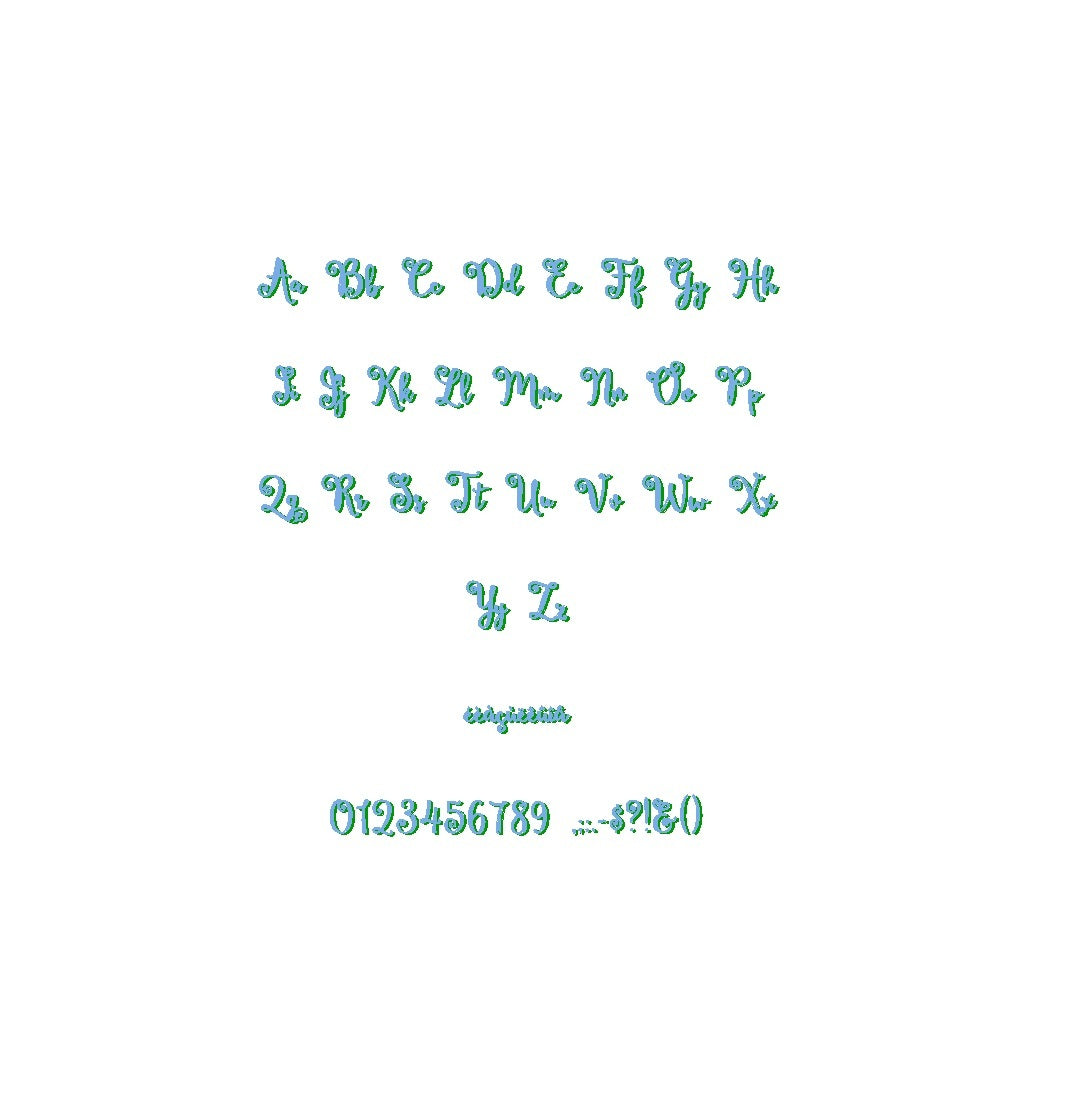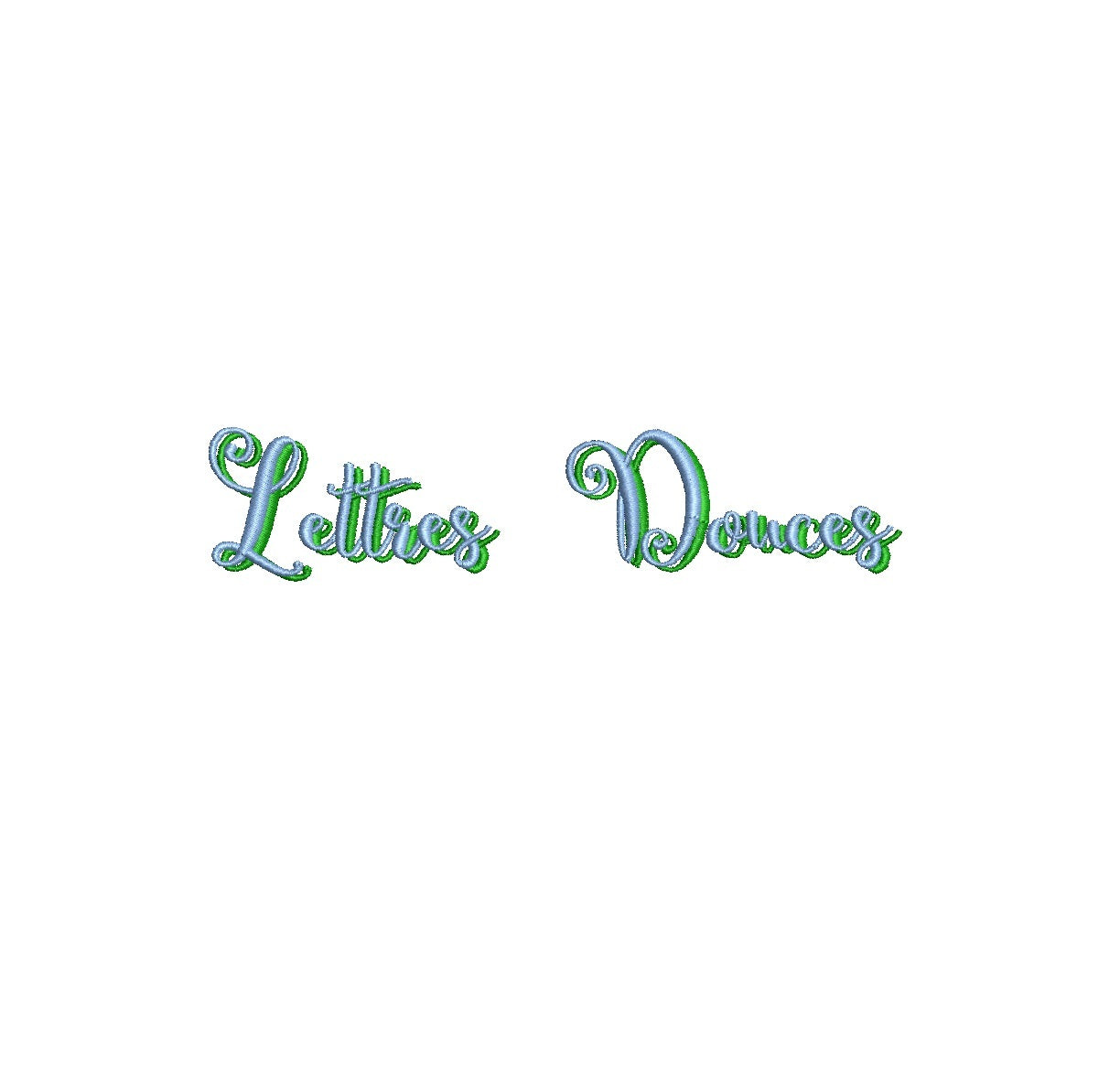
Lettres Douces Shadow ESA font
Elevate your designs with the exquisite Lettres Douces Shadow ESA font. Fully compatible with Wilcom Studio e4.5.6 and Hatch 3 versions and up, this font adds a touch of refined beauty and timeless charm to your projects. The font's delicate shadows and graceful lines create a captivating visual impact that sets your designs apart. Streamline your creative process and achieve flawless results by utilizing this font with industry-leading software. Upgrade your projects with the compatibility of Lettres Douces Shadow ESA font and craft visuals that exude sophistication. Embrace creativity and elegance for your design journey today!